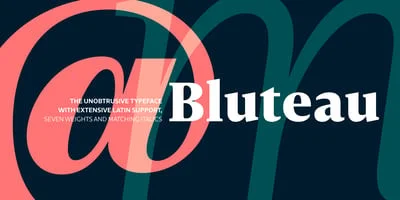
Bluteau Font
Bluteau Font is perfect for French cultural institutions, sophisticated Parisian café branding, elegant wine estate communications, French language publications, European art galleries, refined culinary establishments, luxury French fashion brands, and authentic French heritage projects.
What makes Bluteau Font exciting is its refined French sophistication that captures the elegant charm and cultural refinement of Parisian design traditions through graceful, aristocratic letterforms. This distinguished typeface features classical proportions with subtle French influences that evoke the timeless elegance and intellectual sophistication of French cultural heritage, making it ideal for projects requiring authentic French design sensibility and European cultural distinction in their sophisticated communications.
The Bluteau Font family includes regular and italic weights, plus French-inspired decorative elements and European character support that enhance the Parisian aesthetic with authentic French styling and cultural typography elements for heritage applications.
This elegant typeface delivers exceptional French authenticity and European sophistication, making Bluteau Font a valuable resource for French cultural and luxury brand projects. The font's sophisticated character makes it perfect for organizations wanting to convey French elegance and European cultural refinement in their brand communications. French restaurants and European cultural centers particularly appreciate its ability to communicate authentic Parisian sophistication and French cultural heritage instantly to international audiences. The elegantly designed letterforms ensure optimal readability while preserving the distinguished appeal of French design traditions across all applications from wine labels to cultural exhibition materials. Whether you're creating materials for French cultural festivals or developing branding for Parisian-inspired boutiques, this font provides the perfect combination of cultural authenticity and luxury presentation. Creative professionals consistently choose this typeface for projects requiring that ideal harmony between French heritage and contemporary European design standards, making it essential for sophisticated communications that celebrate both French cultural excellence and international luxury appeal.